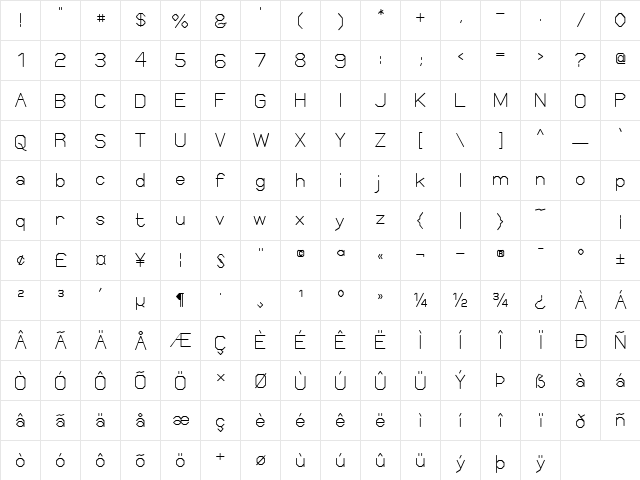
Elgethy Square Regular
| Foundry | Graham Meade |
Design Context for Elgethy Square Typeface
Elgethy Square offers clean, dependable letterforms without strong stylistic allegiance, making it a practical choice for designers who need flexibility.